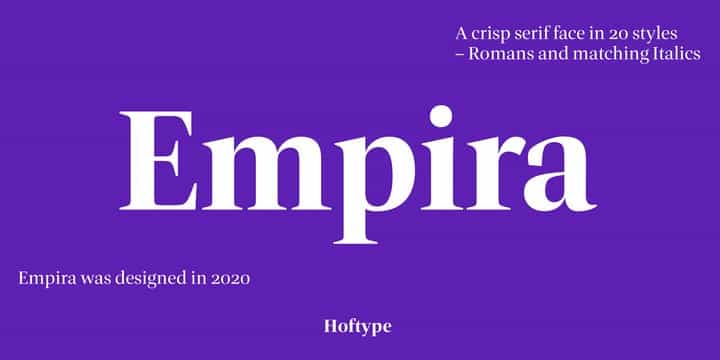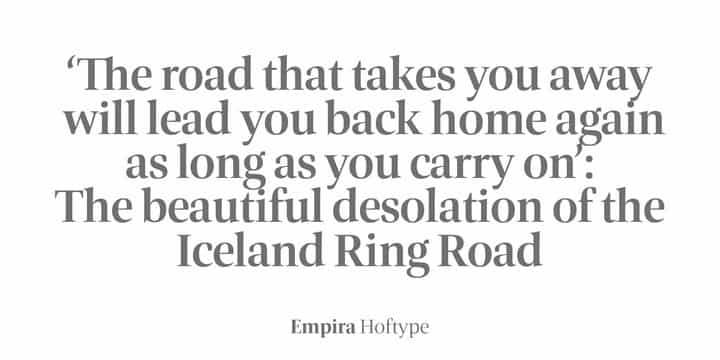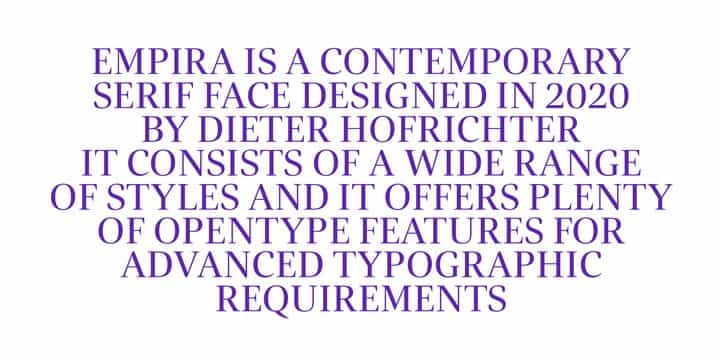
Empira Font is primarily a serif font and is suitable for packaging designs, menus for eating establishments and more, magazines, logos, posters and much more. Hoftype created and uploaded this. Empira is also an outstanding new typeface with high contrast.